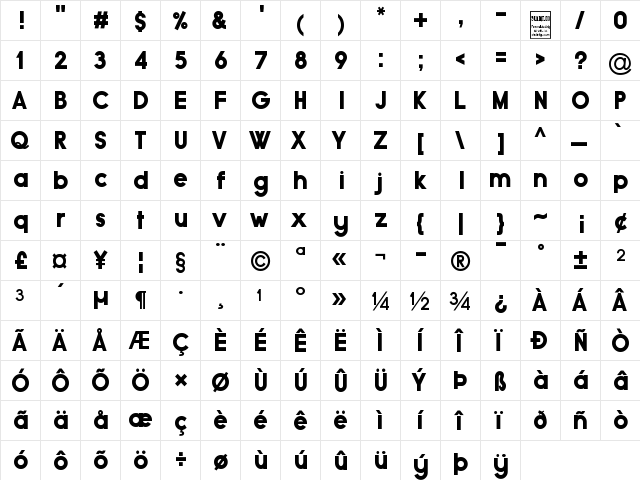
Typo Grotesk Black Regular
Design Context for Typo Grotesk Black Typeface
Typo Grotesk Black takes a clean, functional approach — its unadorned letterforms prioritise legibility and work reliably across screen and print environments.
Font Pairing: Works well alongside a characterful serif or display font that can carry the expressive load while Typo Grotesk Black handles the functional copy.
Pro Tip: Pair Typo Grotesk Black with a display or serif font for headlines — its neutral character makes it an excellent supporting player in complex typographic systems.